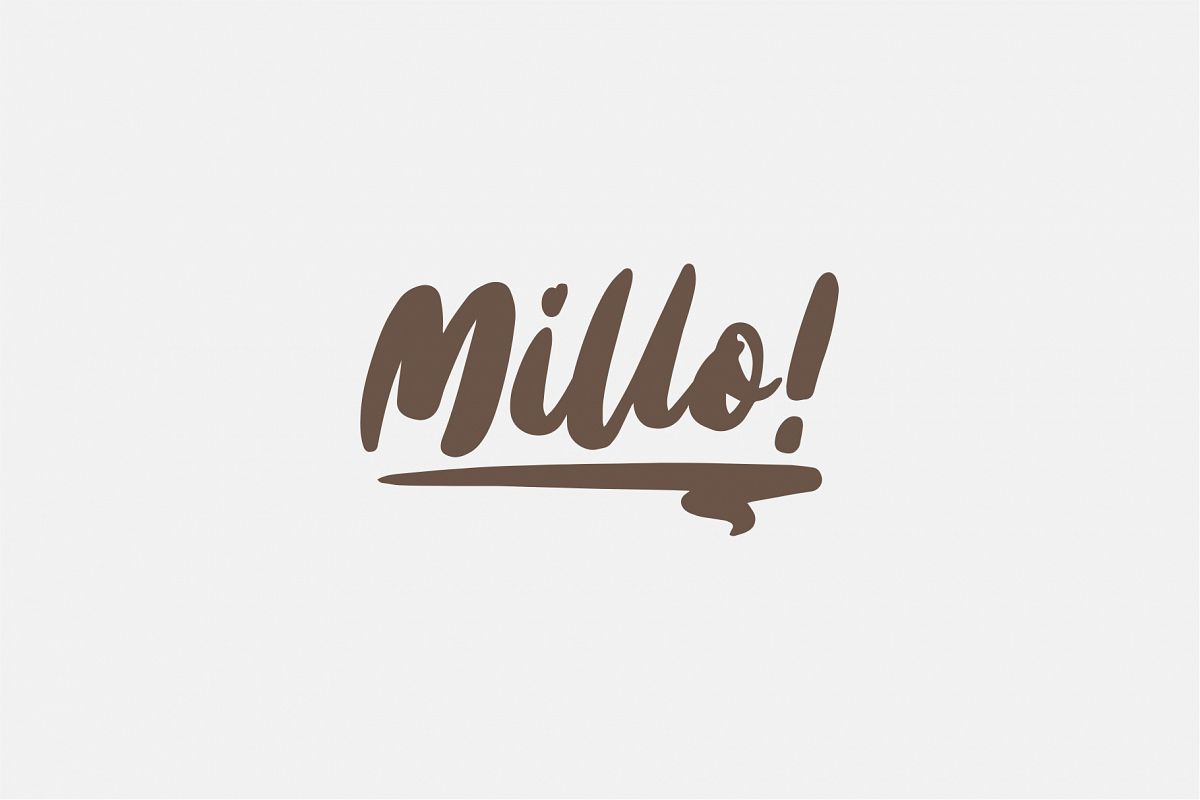
MILLO Script
Welcome to Millo. Inspired from the chocolate drink style for make a great your work. Very versatile for poster, label, apparel, t-shirt, branding, packaging, logotype, and many more. With additional swashes (use with opentype numeral), you can make different style!What the features?
• Different swashes (numeral opentype)